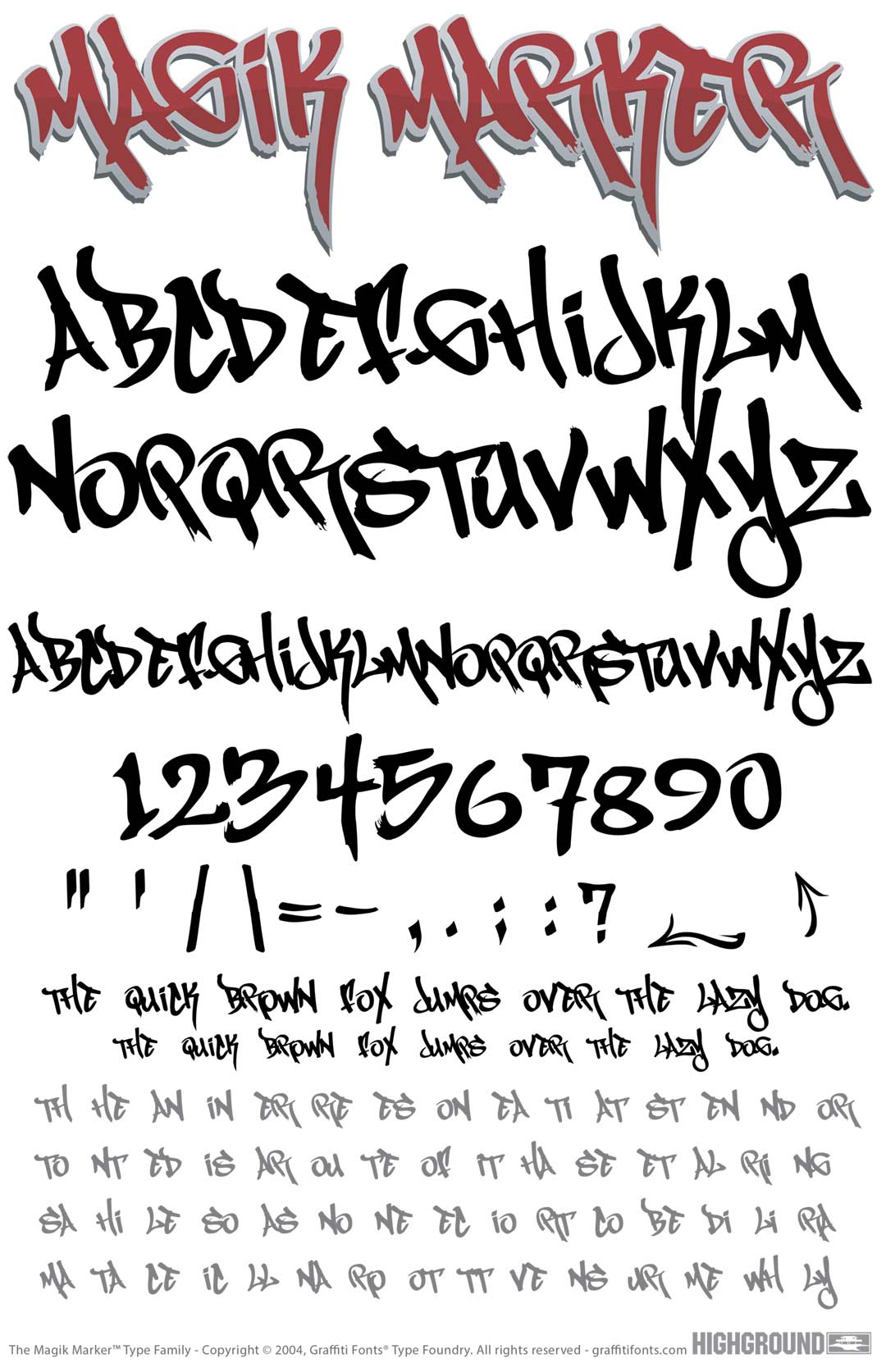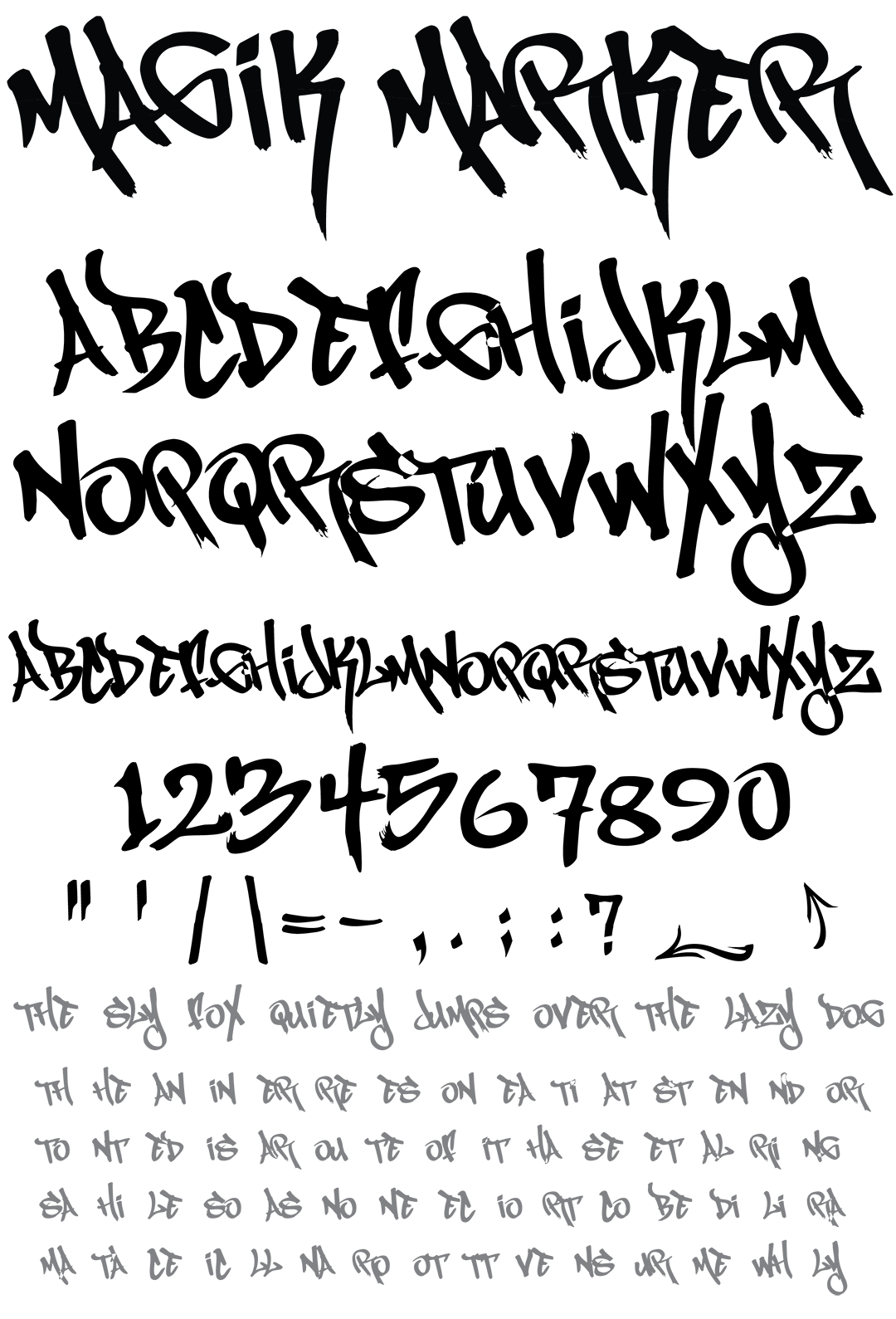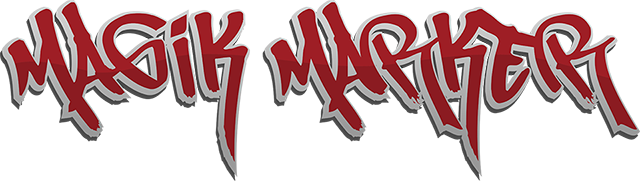
Magik Marker Font
Magik Marker Title Image
Magik Marker Graffiti Alphabet
Magik Marker Graffiti Font Family
This irregular tag style was meant to have a childish or "toy" graffiti flavor. The letters were written out with a blunt "magic marker". 88 characters In all.